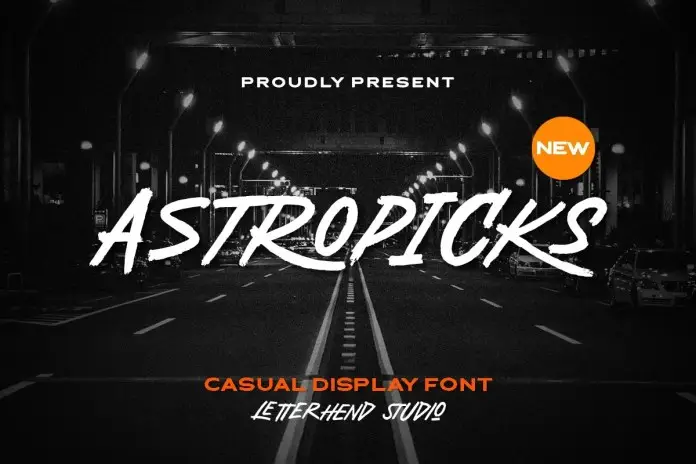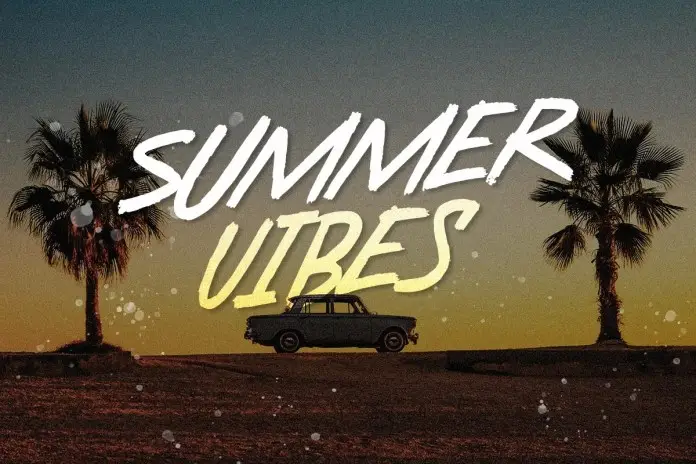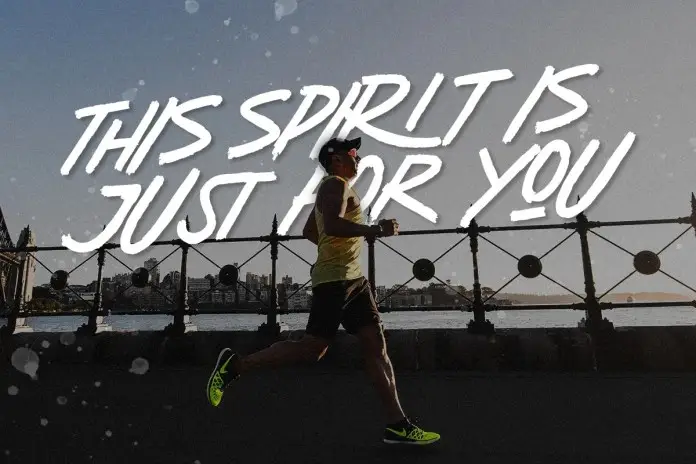
Astropicks Display Font
The Astropicks Display Font is a captivating typeface designed to make your projects stand out. With its unique character shapes and bold presence, this font is perfect for a variety of applications including branding, logos, and eye-catching headlines.
• Distinctive display style
• Multiple weights for versatile use
• Special characters and symbols included
• Weight: Regular, Bold
• Ideal for web and print projects
• Use for headlines, posters, and promotional materials
• Combine with complementary fonts for a balanced design